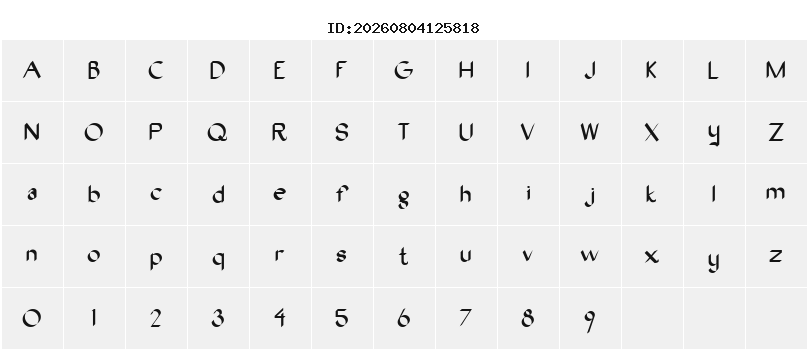
Nival Preview
About Nival.ttf
Nival.ttf is a modern, elegant sans-serif font designed for ultimate readability and visual harmony. Perfect for branding, headlines, web design, and print materials.